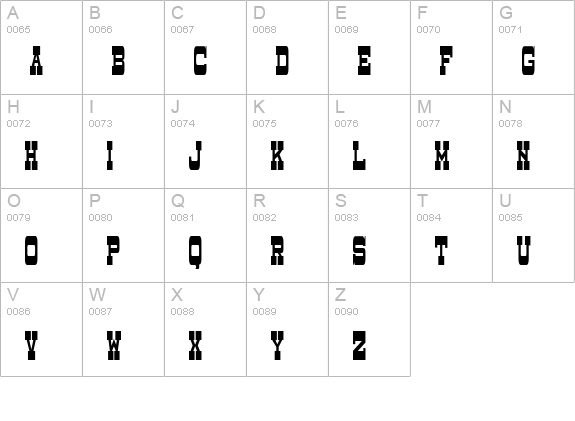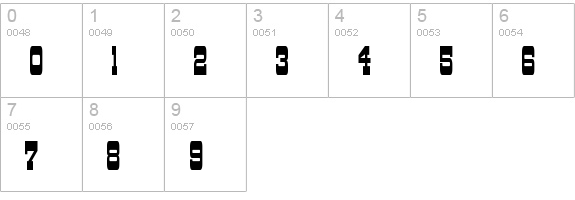
Dry Goods Narrow JL is a distinctive, condensed-width variant in the Dry typeface family \xE2\x80\x94 well suited to design and typography projects.
Dry Goods Narrow JL is a modern and sleek font that exudes sophistication and elegance. With its narrow and stylish lettering, this font is perfect for a wide range of design projects, from branding to editorial design. The clean lines and sharp angles of Dry Goods Narrow JL give it a contemporary edge that will make your text stand out. What's even better is that Dry Goods Narrow JL is available for free download at FontsMarket.com. This means you can easily access this beautiful font and use it in your projects without any cost. Whether you're working on a website, poster, or any other creative endeavor, Dry Goods Narrow JL is sure to add a touch of class and professionalism. Download it today and elevate your design to the next level.